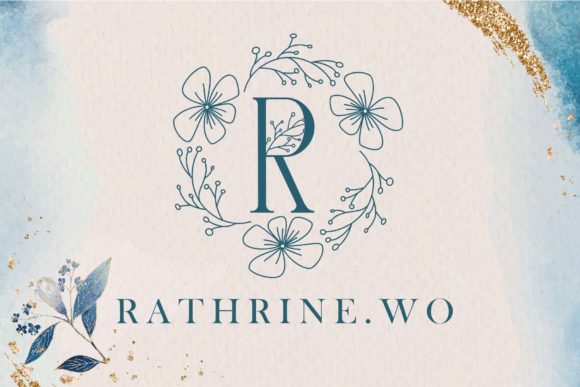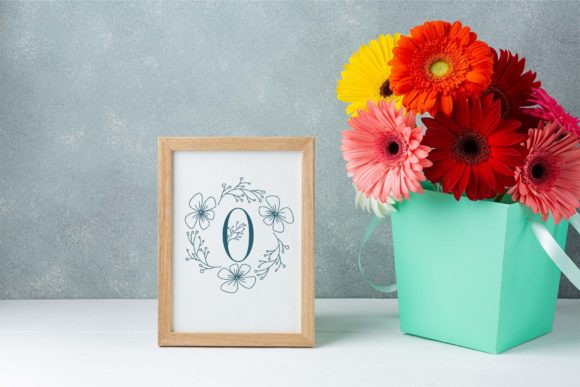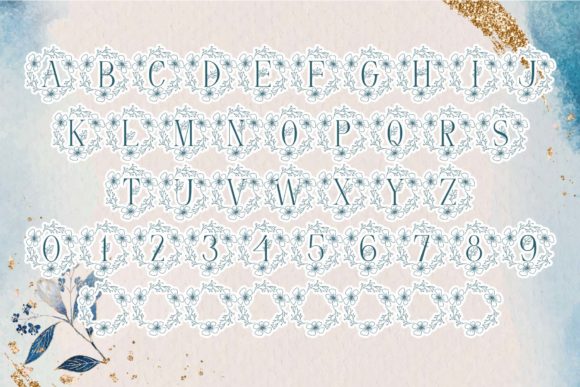
Introducing Flower Buds Monogram Font: Elevate Your Designs with Elegance
Are you a designer, crafter, or DIY enthusiast looking for a unique and beautiful font to add a touch of elegance to your projects? Look no further than the Flower Buds Monogram Font. This highly detailed and decorative font is perfect for creating stunning love letters, wedding invitations, and design ideas that will leave a lasting impression.
What is Flower Buds Monogram Font?
Flower Buds Monogram Font is a carefully crafted font that features intricate flower bud designs, making it an ideal choice for romantic and whimsical projects. Each letter is meticulously designed to resemble a delicate flower bud, adding a touch of sophistication and charm to any design.
Key Features of Flower Buds Monogram Font
- Highly detailed and intricate designs: Each letter is carefully crafted to feature delicate flower bud designs, making it perfect for designs that require a touch of elegance.
- Decorative and whimsical: The font’s unique design makes it ideal for romantic and whimsical projects, such as love letters, wedding invitations, and baby shower decorations.
- Perfect for DIY projects: Whether you’re a crafter, DIY enthusiast, or professional designer, Flower Buds Monogram Font is a great addition to your design toolkit.
- Easily customizable: The font can be easily customized to fit your design needs, making it perfect for a wide range of projects.
Uses for Flower Buds Monogram Font
Flower Buds Monogram Font is a versatile font that can be used in a variety of projects, including:
- Love letters and romantic messages: Add a touch of elegance and romance to your love letters and messages with this beautiful font.
- Wedding invitations and decorations: Make your wedding invitations and decorations stand out with this unique and beautiful font.
- Baby shower decorations and gifts: Create adorable and memorable baby shower decorations and gifts with Flower Buds Monogram Font.
- Stationery and greeting cards: Add a touch of whimsy and elegance to your stationery and greeting cards with this lovely font.
Tips for Using Flower Buds Monogram Font
To get the most out of Flower Buds Monogram Font, here are some tips to keep in mind:
- Pair with complementary fonts: Pair Flower Buds Monogram Font with complementary fonts to create a beautiful and cohesive design.
- Experiment with colors and textures: Experiment with different colors and textures to add depth and interest to your design.
- Use in combination with images: Use Flower Buds Monogram Font in combination with images to create a stunning and eye-catching design.